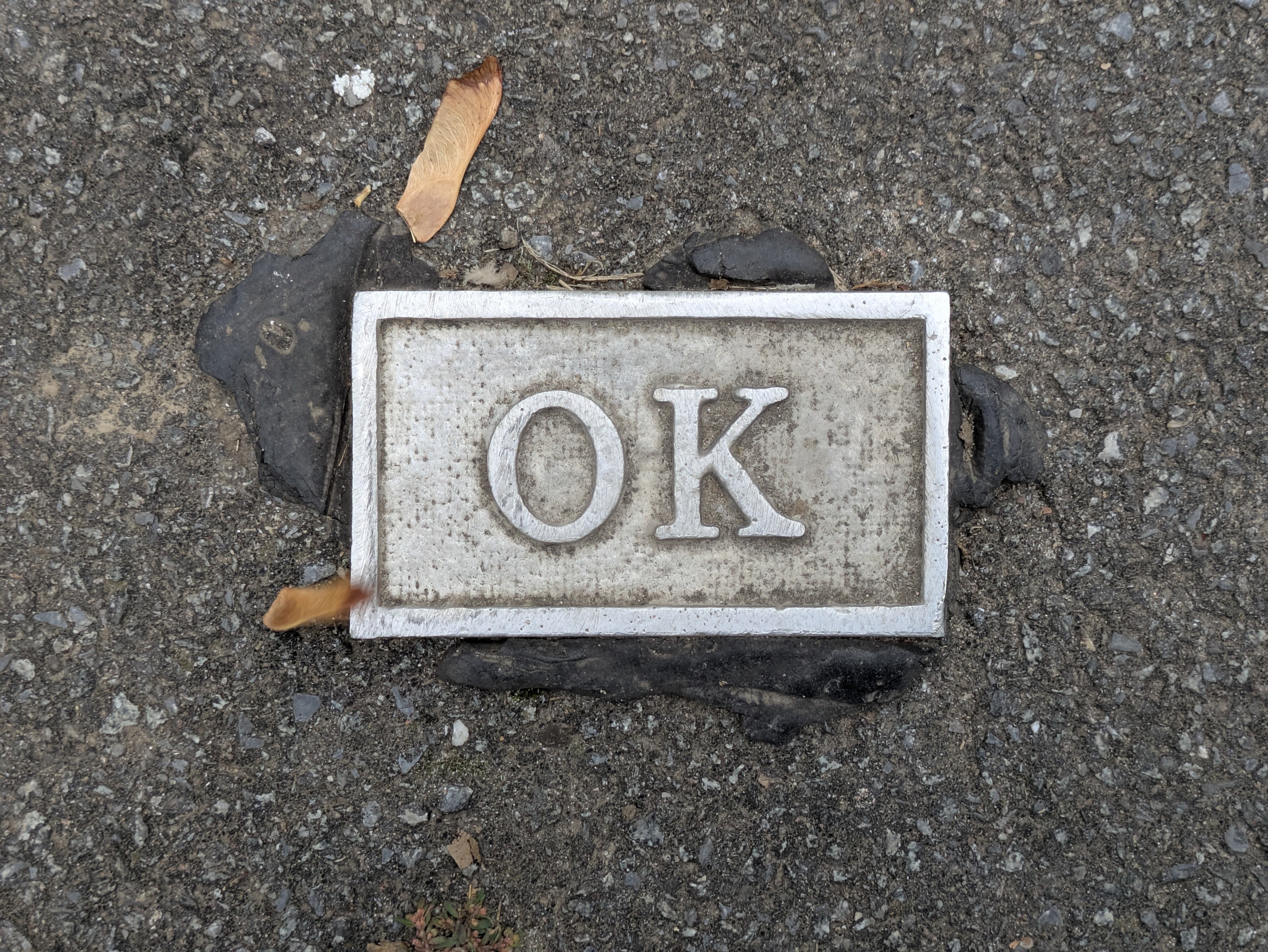
Optički kabl
mark
The "OK" metal marks in Belgrade indicate underground optical fiber routes. OK = optički kabl. They are utility markers showing where telecom fiber cables run below the street, mainly for maintenance and road works.